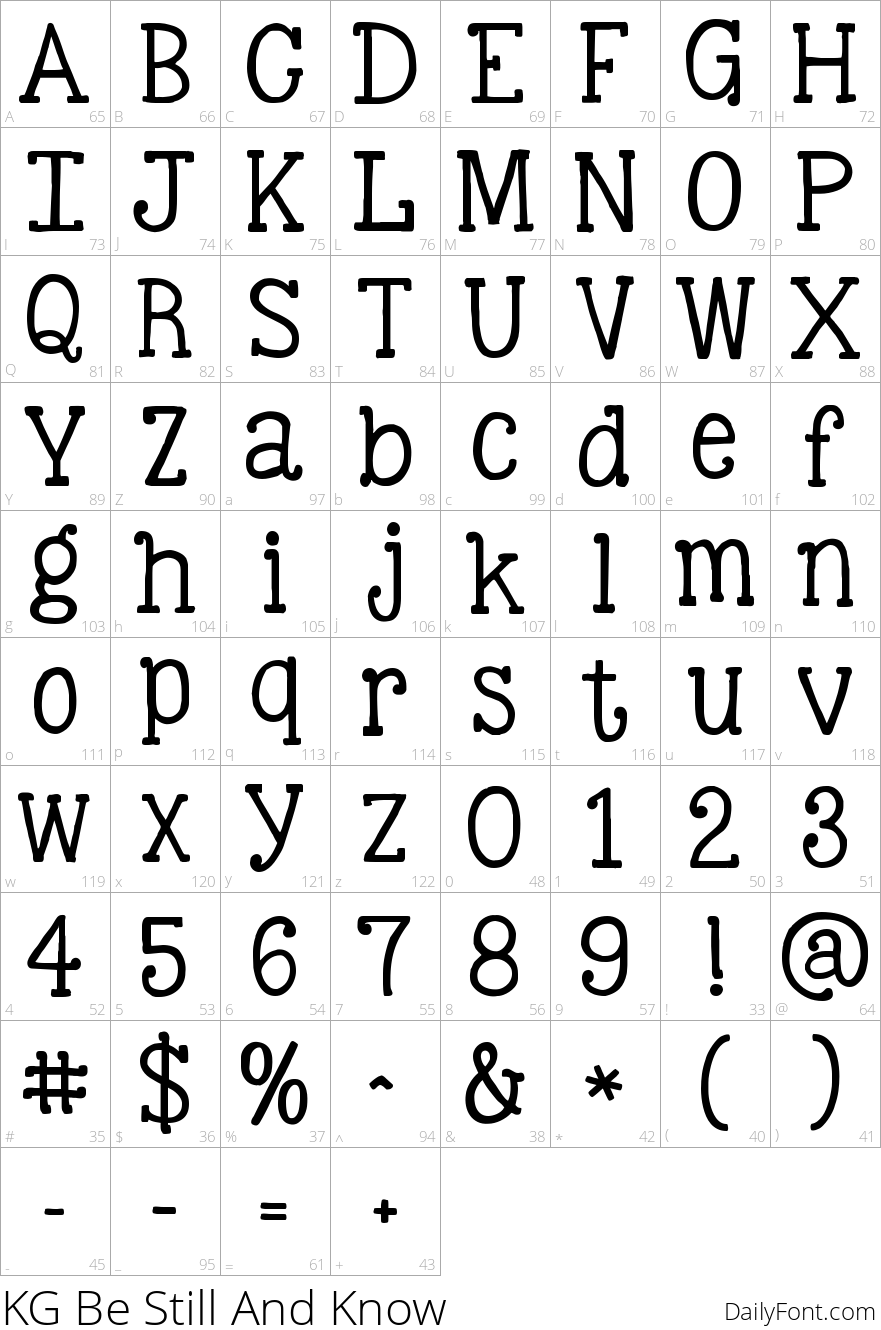
Be Still And Know
Be Still And Know, a font crafted by talented designer Kimberly Geswein, manages to encapsulate a heartfelt handwritten essence while retaining the sophistication of serif elements. Each letter carries a personal, hand-scribed touch, reflecting an intimate style that's inviting and warm, making it a compelling choice for personal and informal communication.
The uppercase letters in Be Still And Know stand tall and elegant with gently rounded edges, combining traditional serif characteristics with a more relaxed, approachable demeanor. These letters exhibit a seamless flow, showing just enough variation to suggest a human hand behind the pen. Their distinctive, slightly imperfect symmetry adds a layer of authenticity and charm to your text, ensuring it engages readers on a personal level.
Transitioning to the lowercase, the font continues to balance structured and casual elements. The lowercase letters are slightly more compact, maintaining a pleasant contrast and readability. Just like the uppercase, the gentle curves and varying thickness of strokes showcase a delicate artistry that makes written words feel alive.
Punctuation and numerals in Be Still And Know are equally detailed. Numbers maintain clarity and balance, matching their alphabetical counterparts' style and flow. Punctuation marks, simple yet expressive, ensure seamless integration into your text, providing the perfect finishing touch to your written content.
Ideal for invitations, greeting cards, and other personal projects, Be Still And Know offers a unique blend of formality and friendliness. Kimberly Geswein's font stands out as an eloquent handwritten serif, making any message feel heartfelt and genuine.